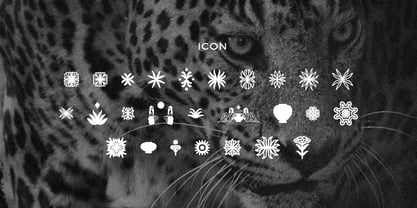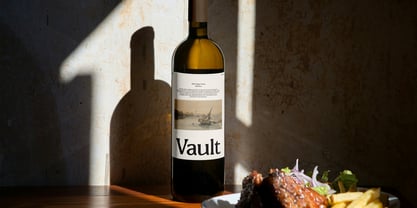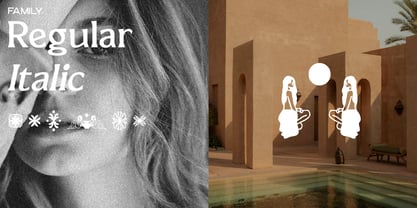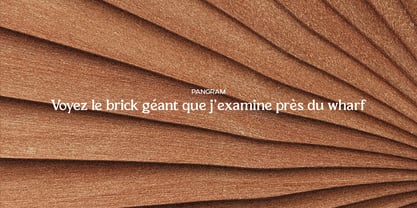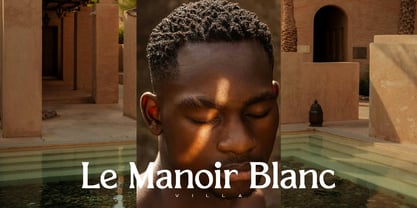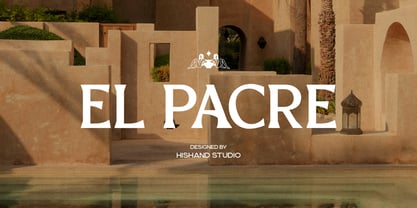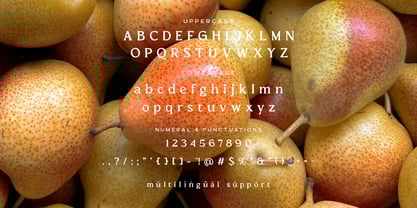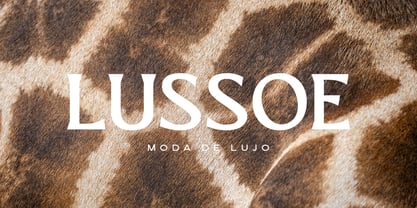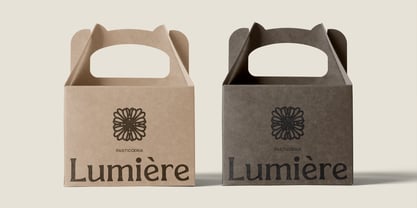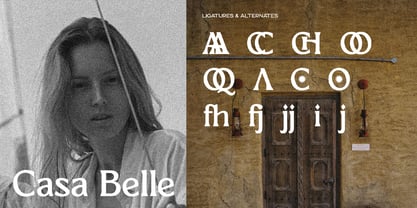
El Pacre
by Hishand Studio
The El Pacre Font Family was designed by Putu Dody Permana and published by Hishand Studio. El Pacre contains 3 styles and family package options. More about this family
El Pacre is a bold and aesthetic display serif font that embodies luxury and timeless sophistication. With its elegant letterforms and confident presence, it’s designed to make a powerful statement in every project. The balanced contrast between thick and thin strokes gives it a refined charm, while the stylish details add a touch of modern artistry. Perfect for high-end logos, fashion branding, packaging, and editorial designs, El Pacre brings a sense of exclusivity and elegance to your work. Whether used for large headlines or minimalist wordmarks, this font stands out with grace and authority. Its versatility allows it to adapt beautifully to both classic and contemporary aesthetics, making it an essential choice for designers seeking to create bold yet luxurious visuals. Elevate your design projects with the sophisticated character and visual impact of El Pacre where bold design meets timeless beauty. Complete with ligatures alternates regular Italic icon kerning multilingual support